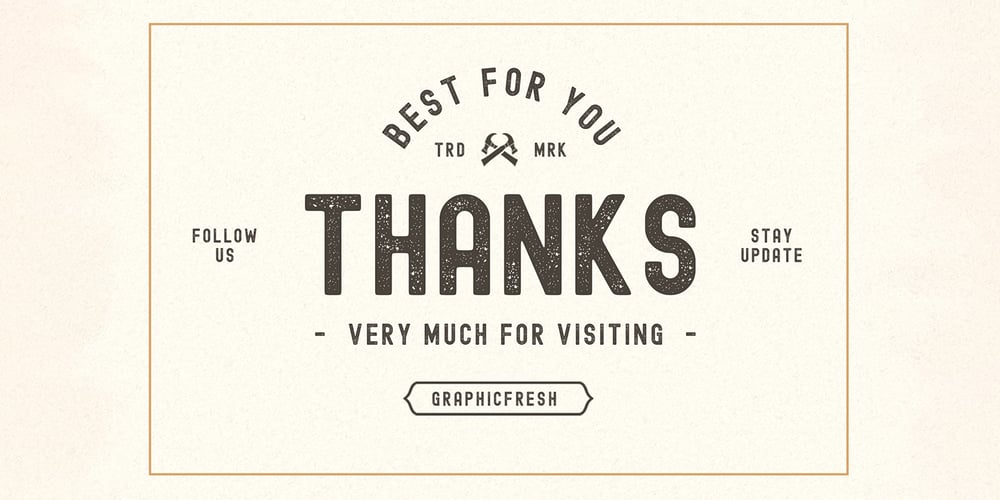
Edmund Font Family was designed by Muhammad Husni Haikal and published by Graphicfresh. Edmund contains 6 styles and family package options. Edmund is a vintage display family (All Caps) including Textured, Rough & Clean versions as well as Italic versions of each. It’s perfect for logos, name card, magazine layouts, invitations, headers, or even large-scale artwork.